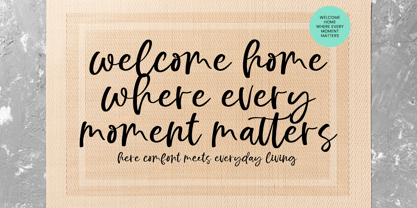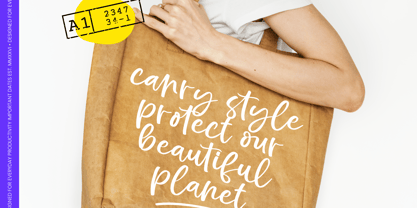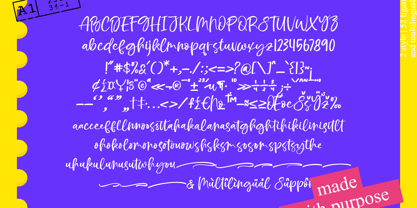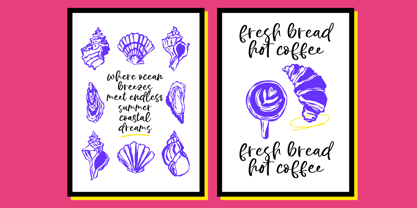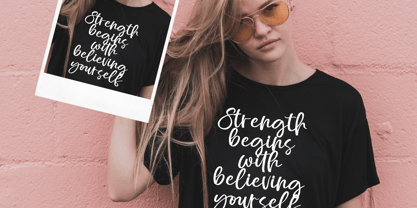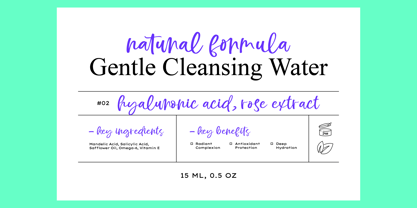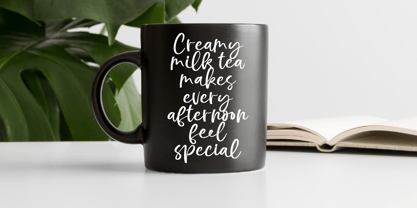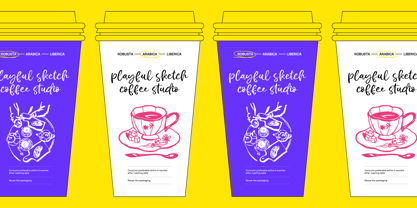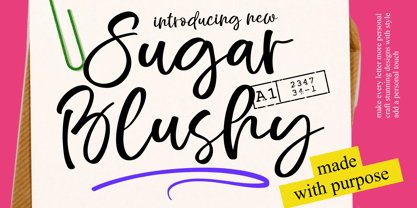
Sugar Blushy
by Letterena Studios
The Sugar Blushy Font Family was designed by Heru Utama Putra and published by Letterena Studios. Sugar Blushy contains 2 styles and family package options. More about this family
Sugar Blushy - Modern Handwritten Script
Elevate your creative vision with a typeface that embodies effortless elegance and organic flow. Sugar Blushy - Modern Handwritten Script is a masterclass in contemporary calligraphy, blending a chic aesthetic with an authentic, hand-drawn feel. Its fluid strokes and rhythmic character movement create a sophisticated atmosphere that resonates with modern audiences seeking a personal touch. By prioritizing visual harmony, this typeface ensures your message remains legible while exuding an unmistakable sense of bespoke craftsmanship.